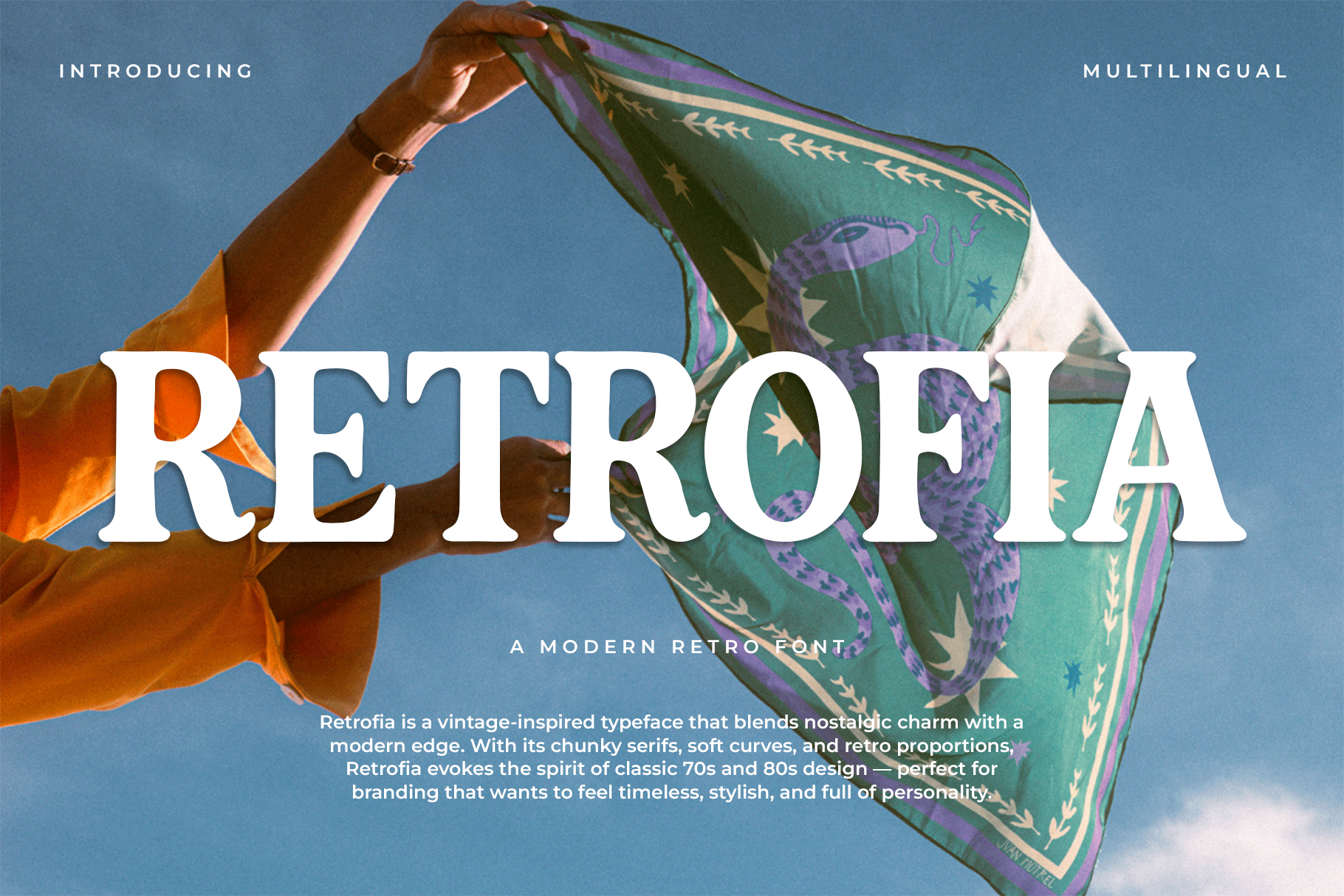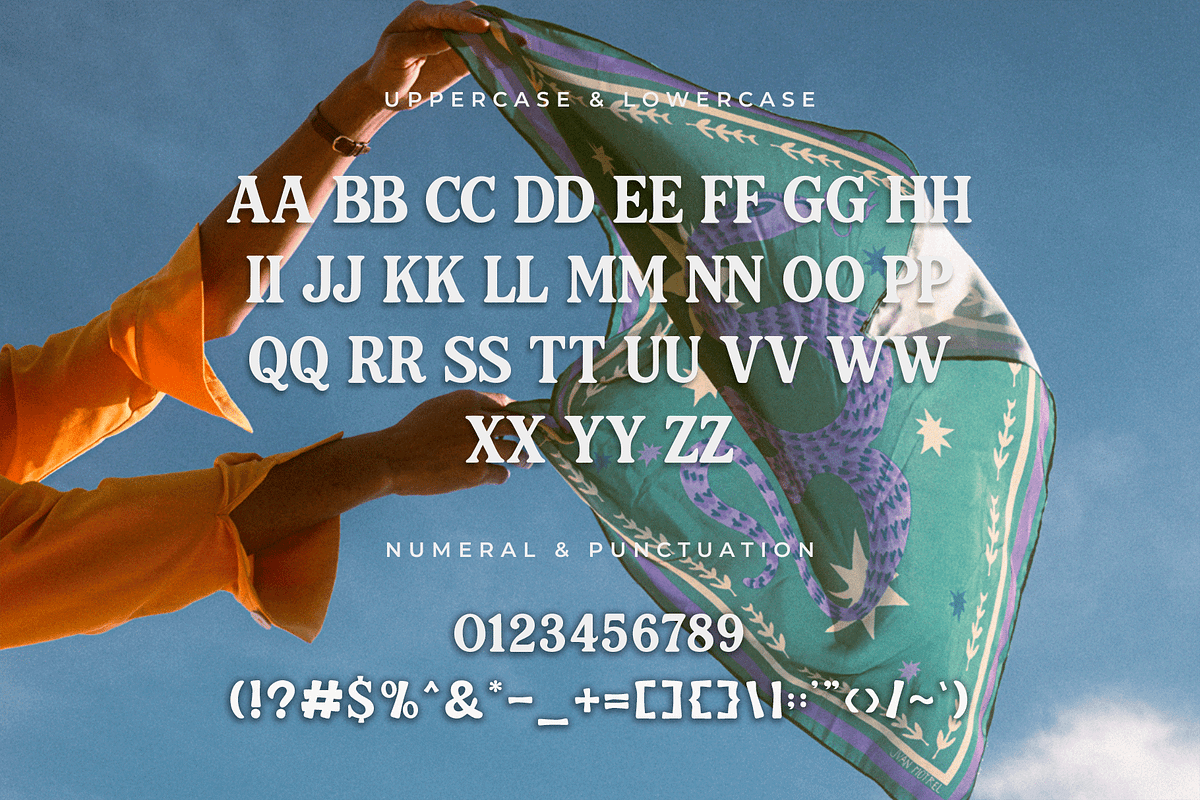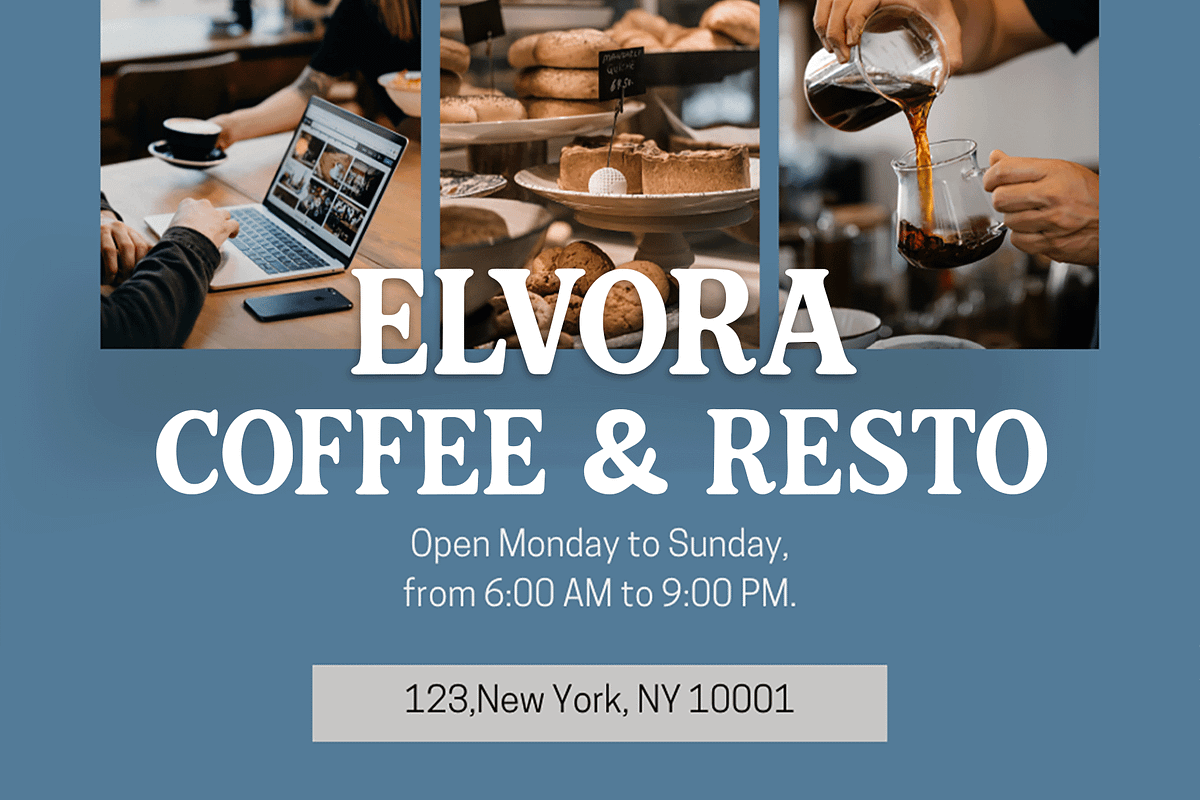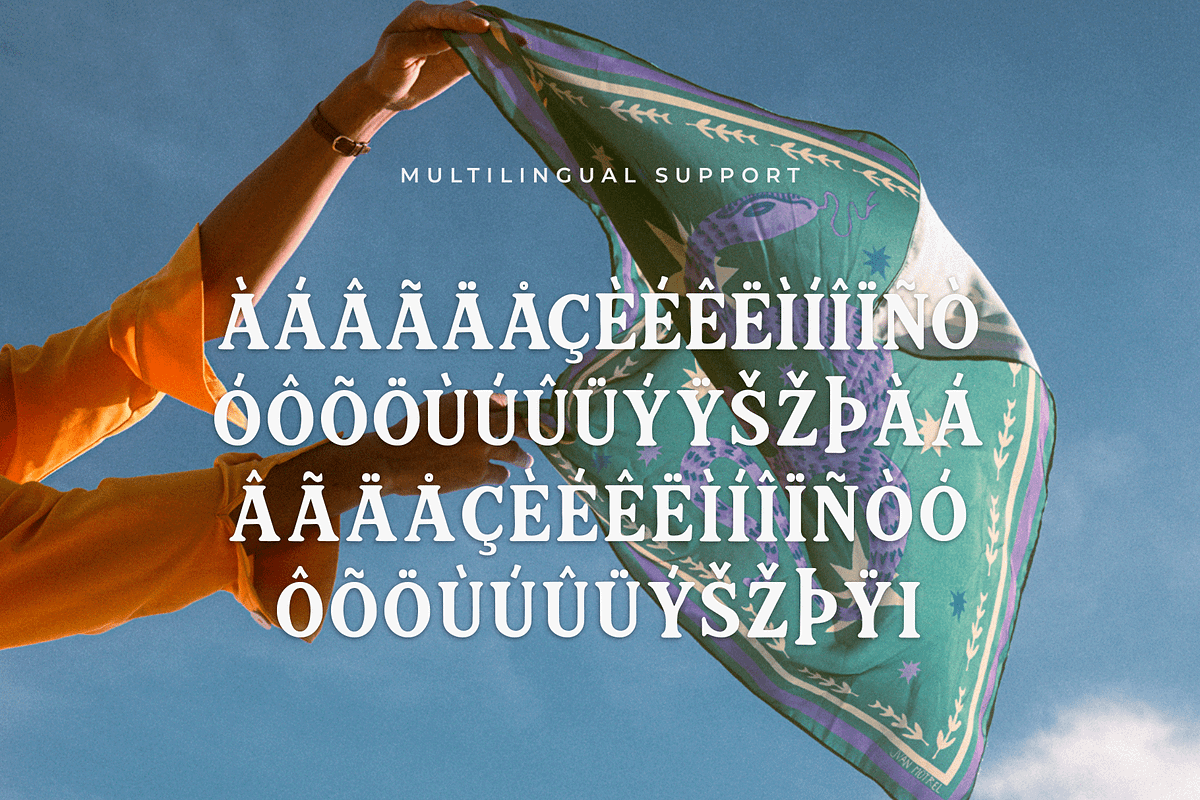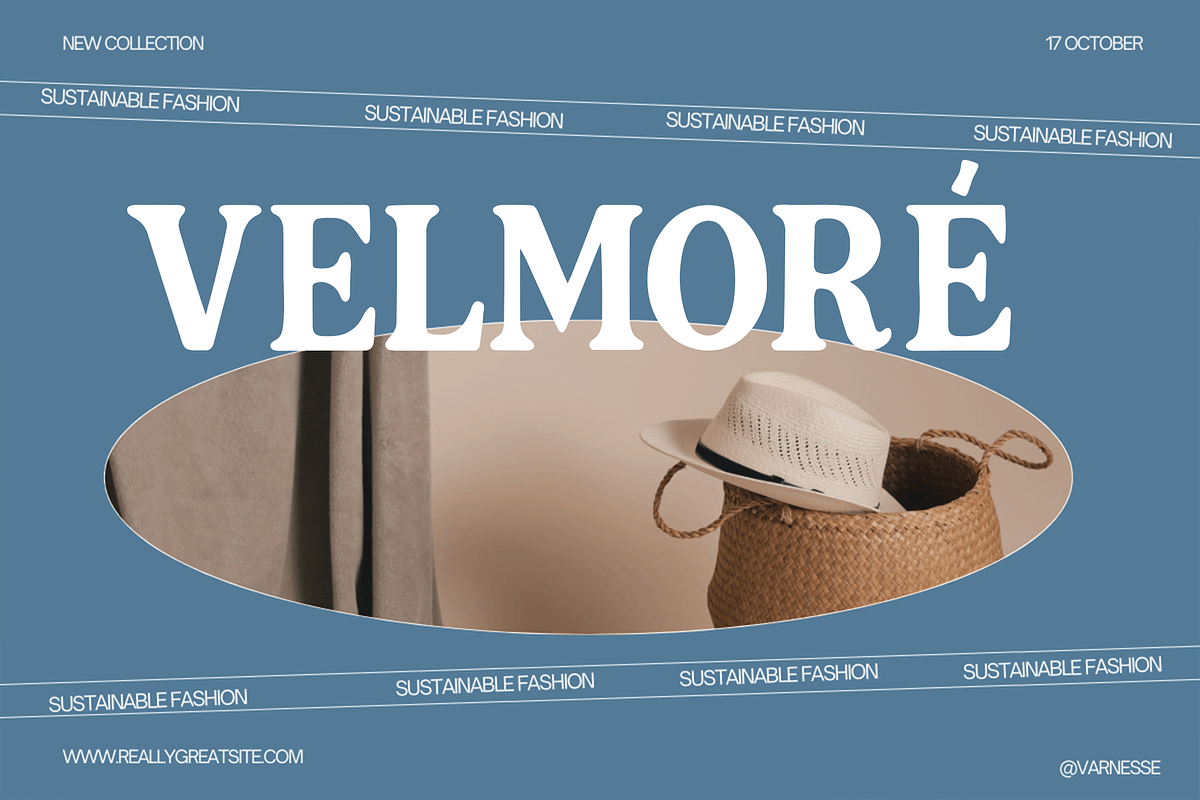
Retrofia – A Modern Retro Typeface
Retrofia is a modern retro font that blends the vibrant essence of vintage design with a clean, updated look. Inspired by groovy letterforms of the past, Retrofia features bold curves, playful proportions, and a touch of psychedelic flair perfect for creating standout headlines, eye-catching posters, nostalgic logos, and trendy branding.
This display font brings a delightful mix of funky charm and contemporary structure, making it ideal for both retro-themed and modern creative projects. Whether you're designing for fashion, music, events, or digital platforms, Retrofia adds energy, personality, and timeless character to your work.
Includes full uppercase and lowercase sets, numbers, punctuation, and multilingual support.